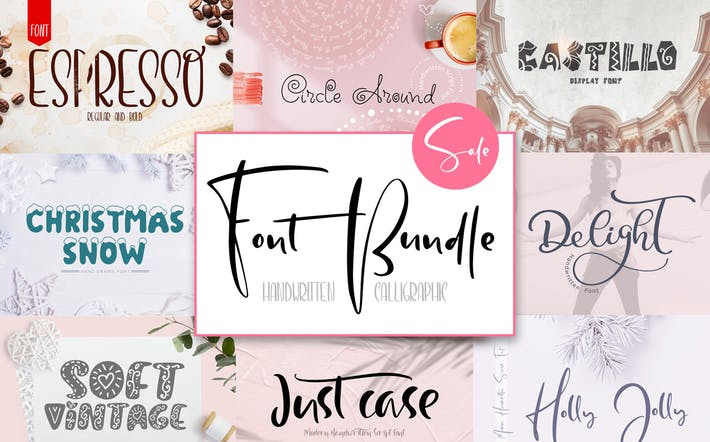
Elevate your design projects with the Font Bundle Handwritten Calligraphic. This collection features a variety of beautifully crafted handwritten and calligraphic fonts, perfect for adding a personal touch to your branding, logos, and print materials.
- Multiple font styles including script, brush, and modern calligraphy
- Various weights for versatility in design
- Elegant script fonts for invitations and greeting cards
- Bold brush fonts for eye-catching headlines
- Classic calligraphic styles for formal documents